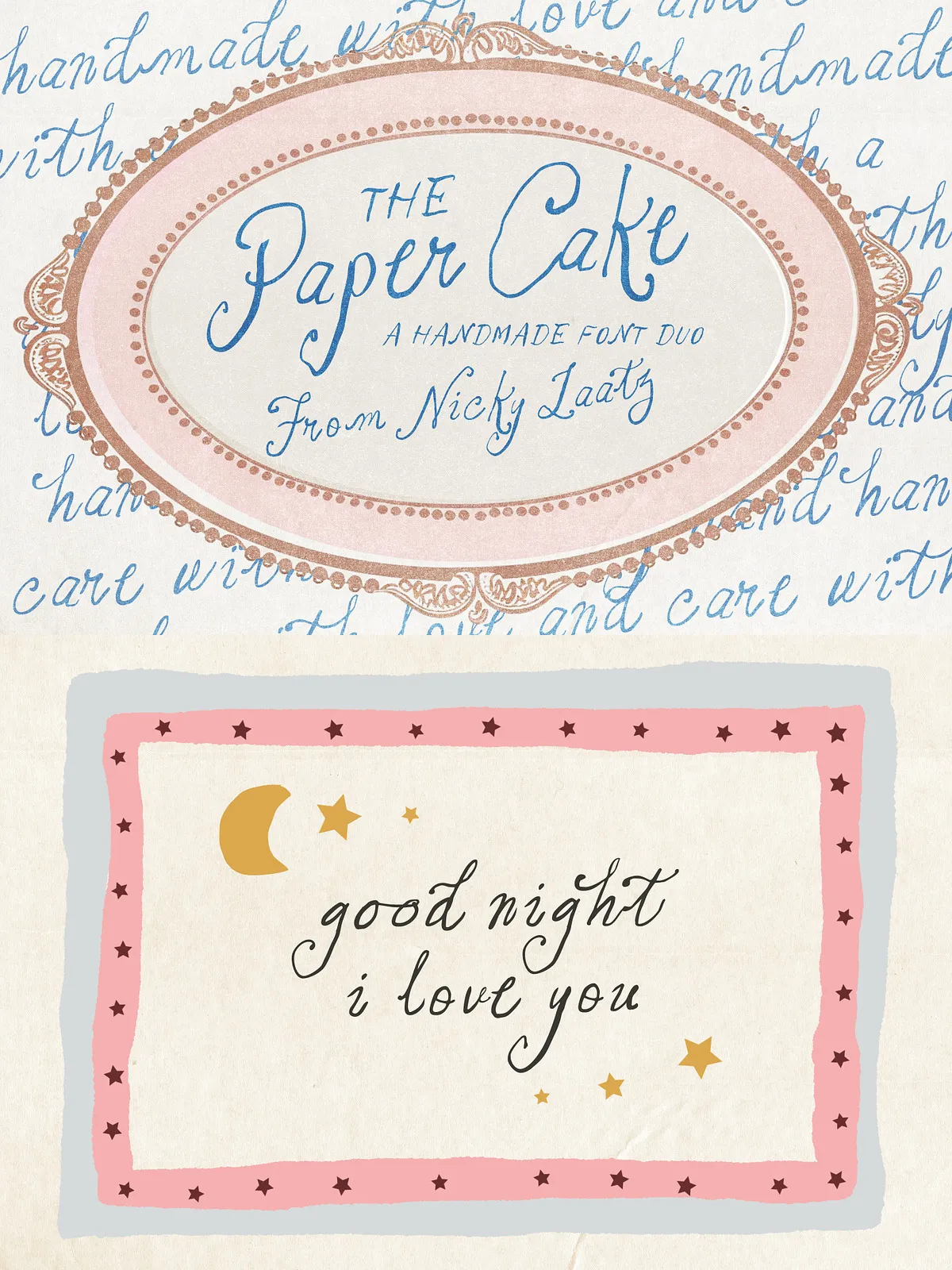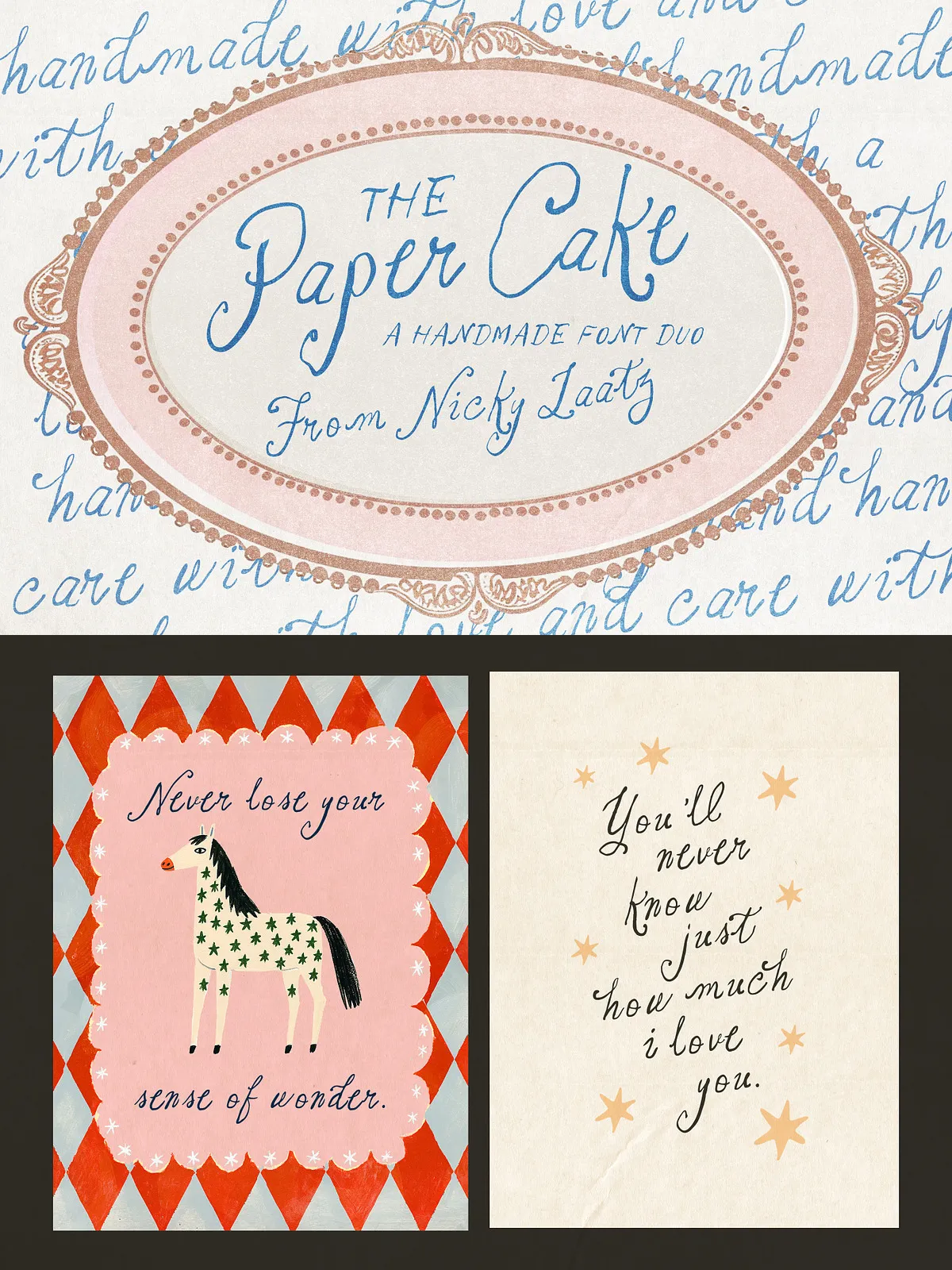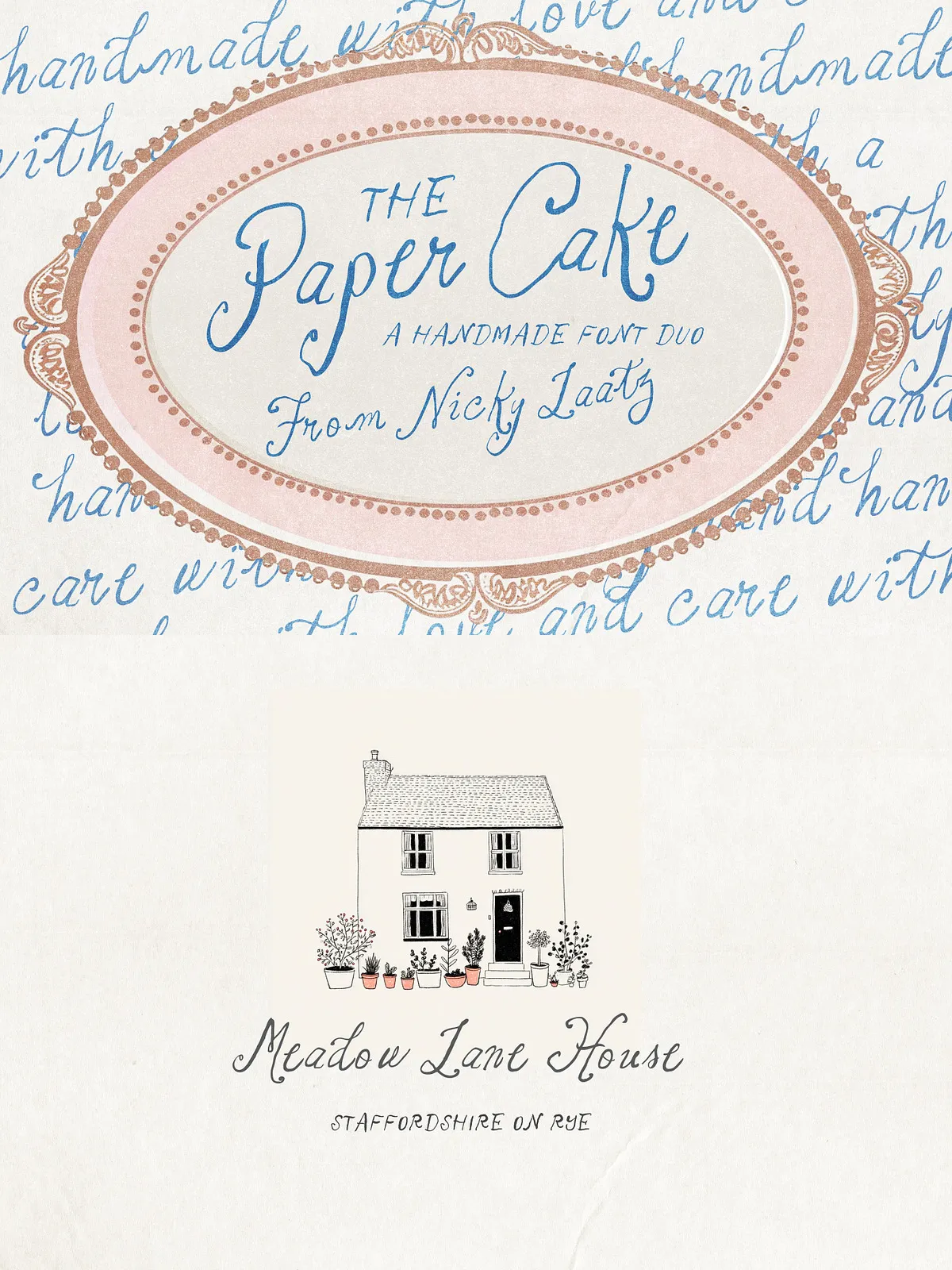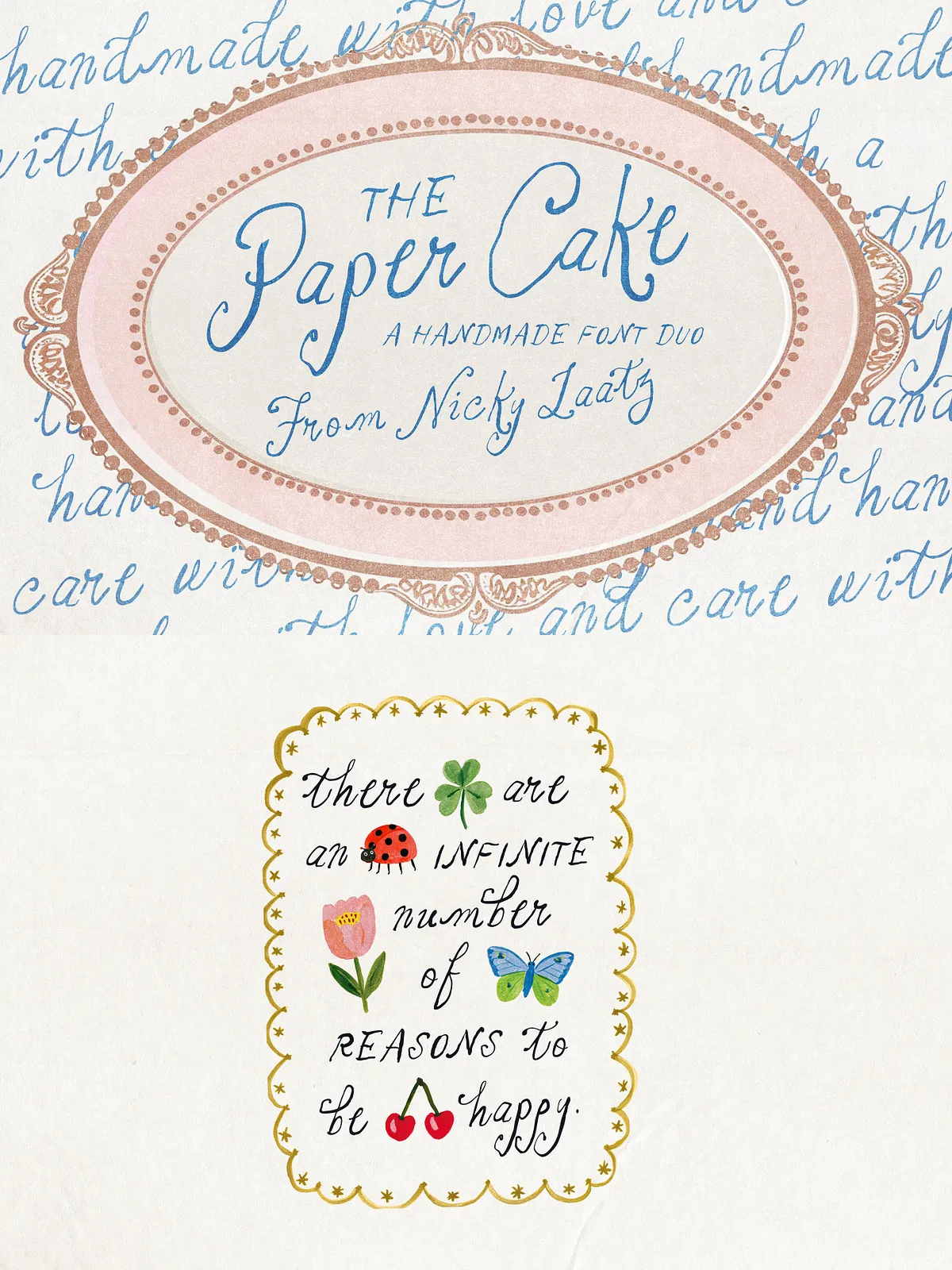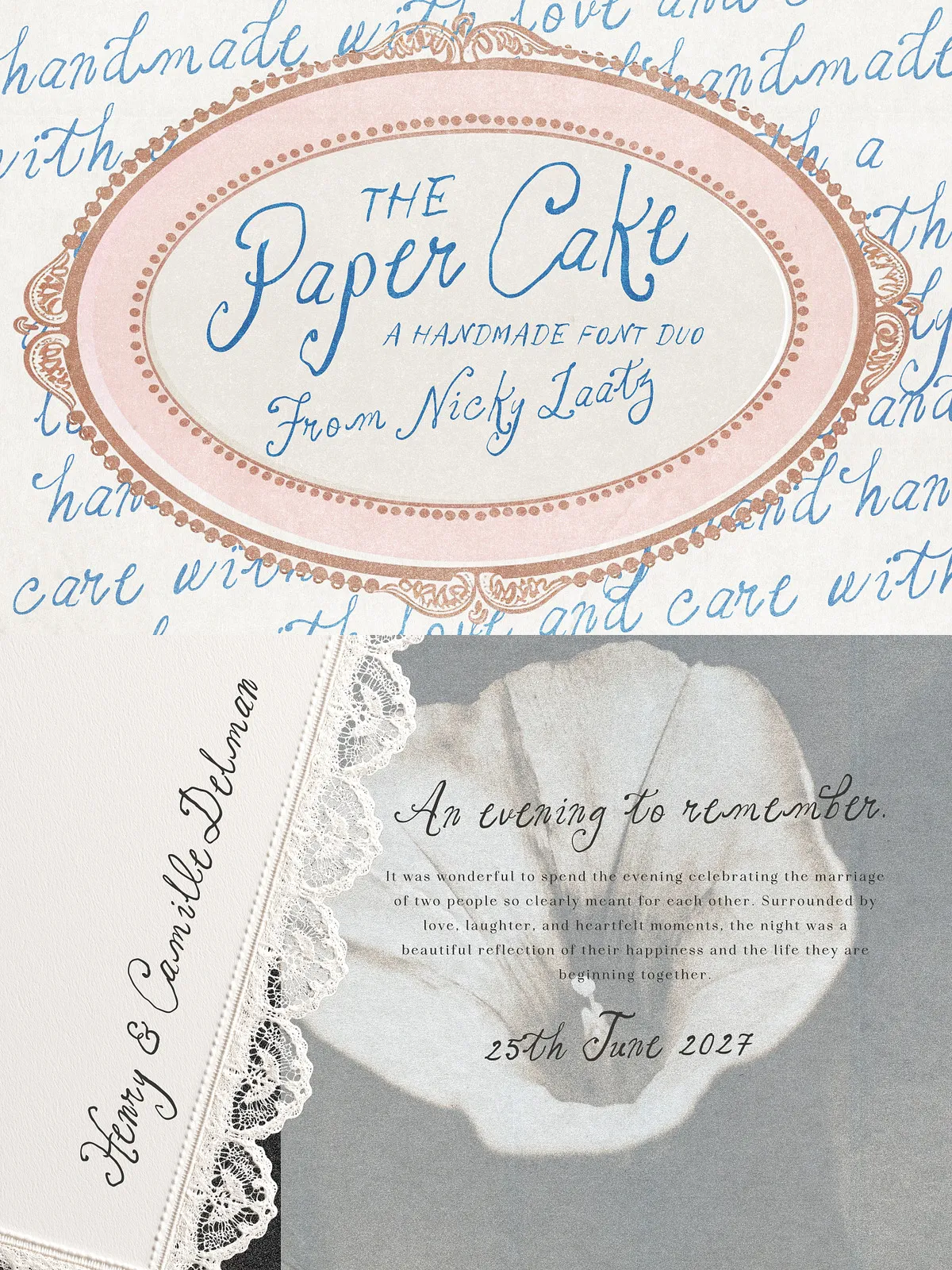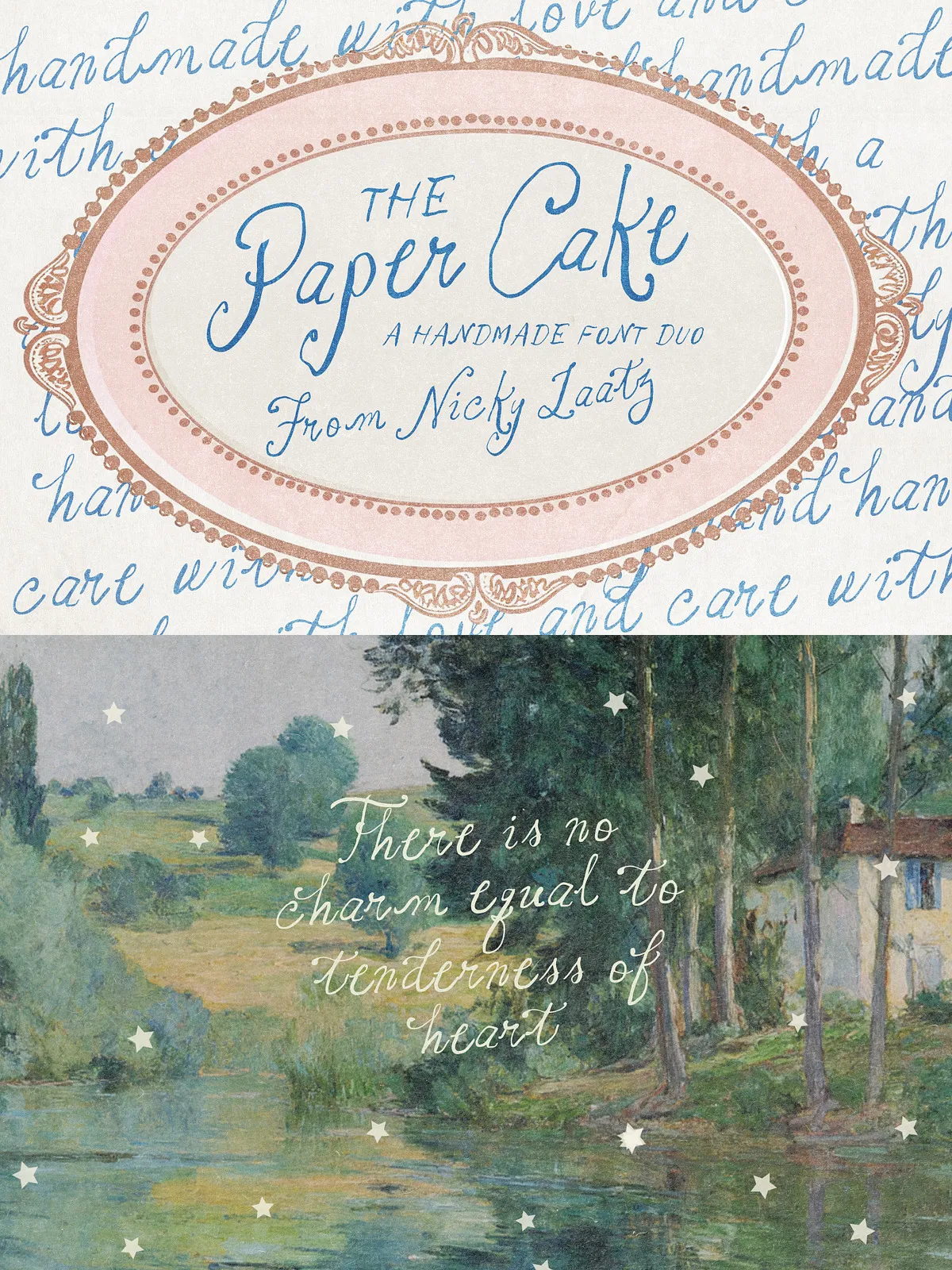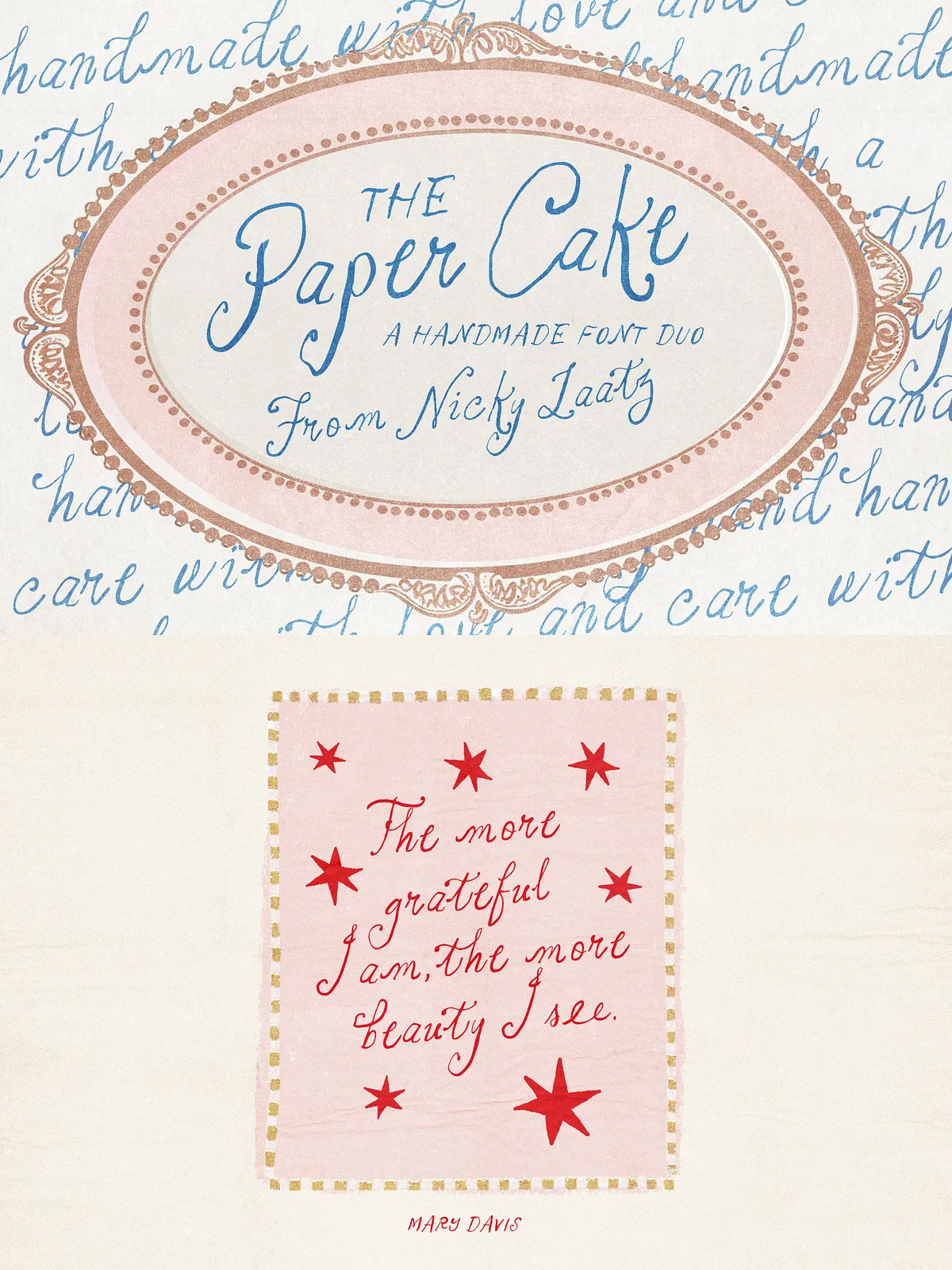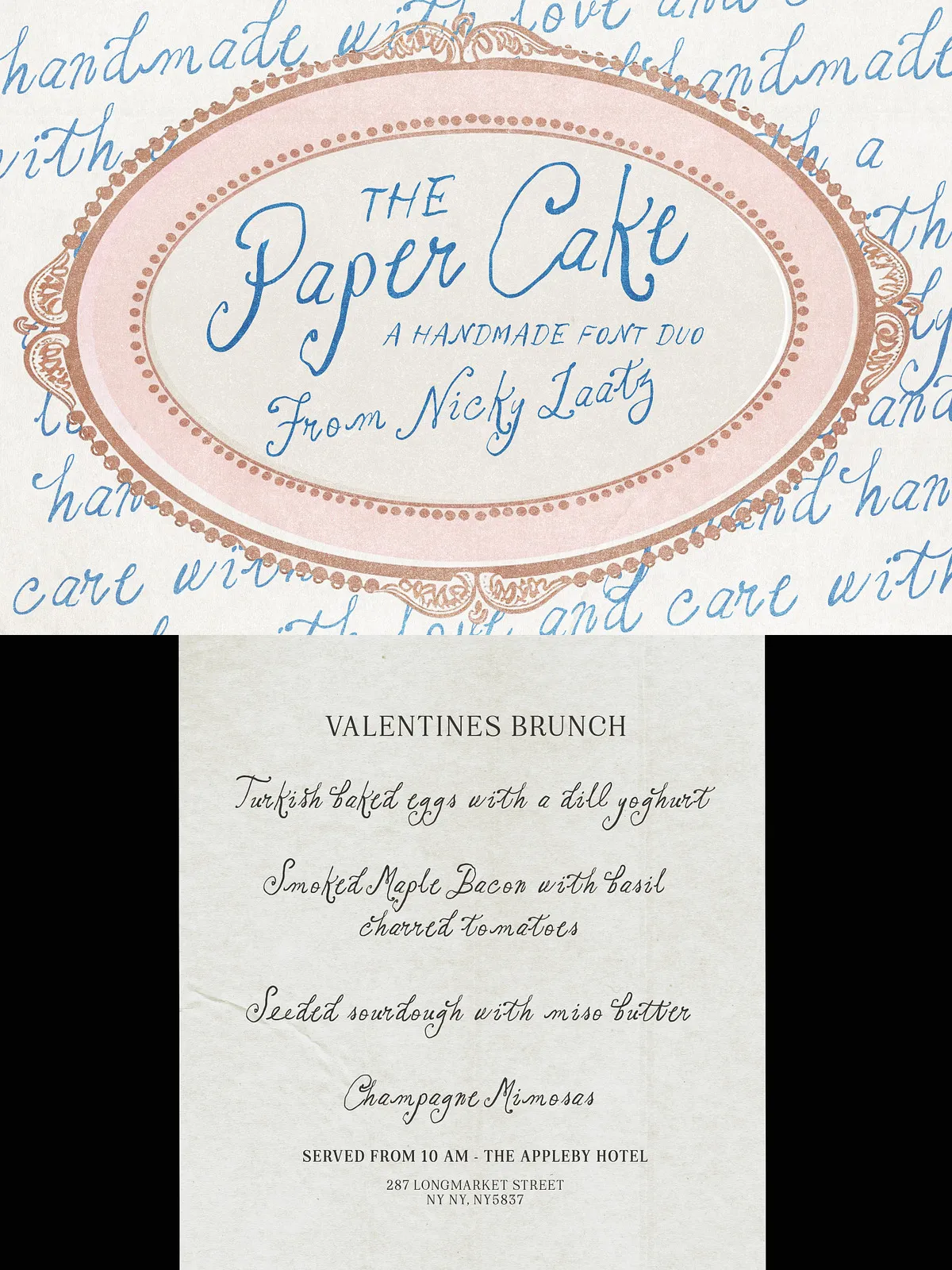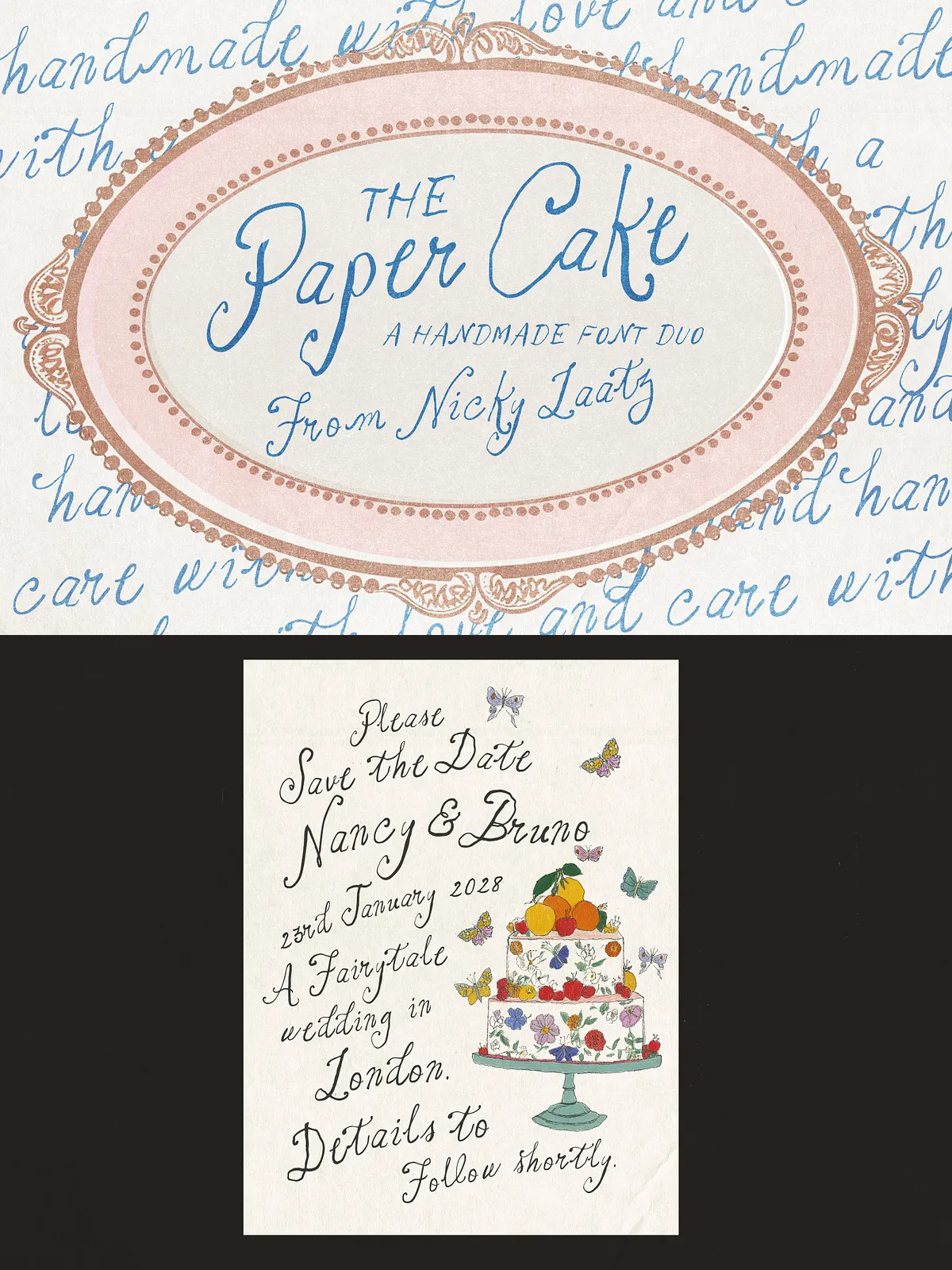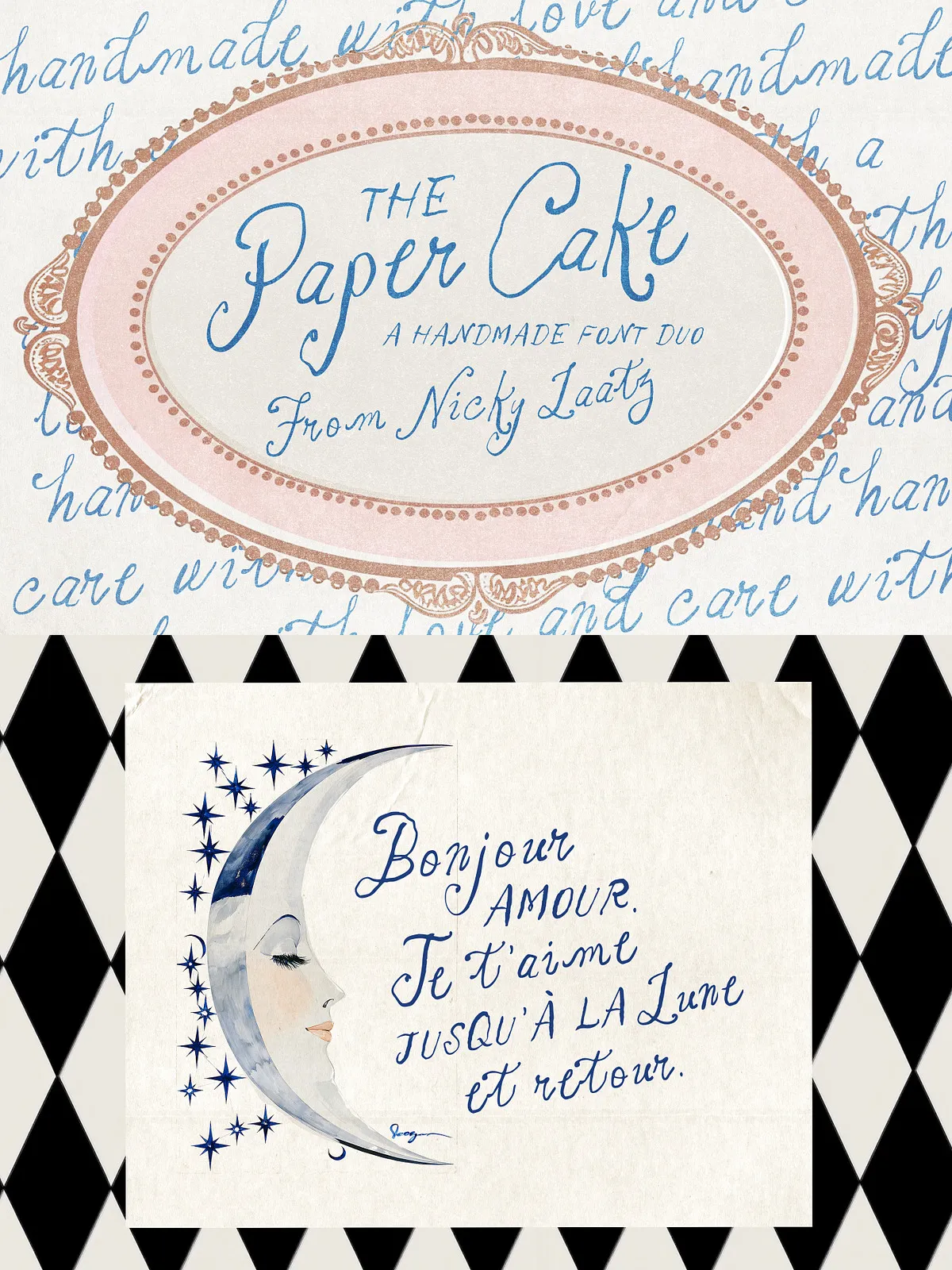
The Paper Cake Font Duo
Paper Cake pairs a delicately hand-lettered, hand-quilled script with a bold, inky all-caps sans to deliver a versatile typographic duet. This duo captures the intimacy of careful handwriting from an era when every letter carried feeling. The script reads warm and poetic while the inky sans provides structure and contrast. Together they create a uniquely personal voice that designers can deploy across romantic, whimsical, and refined projects.
Design & Character
Quilled Script: Warm, Expressive, and Slightly Imperfect
The script embraces small, human imperfections that give it authenticity and charm. Stroke endings show subtle quill-like texture and irregularities that read as hand-crafted rather than manufactured. The letterforms move gently along the baseline, producing readable lines that feel expressive and intimate. Use this script when you want typography to feel handwritten, emotive, and gently nostalgic.
Inky All-Caps Sans: Clean, Playful, and Complementary
The inky all-caps sans anchors the duo with confident shapes and clear geometry. It carries the same handcrafted spirit but with stronger presence and legibility at display sizes. Its slightly textured inked surface pairs naturally with the script: use it for headlines, taglines, or supporting copy to create contrast without clashing.
• Two complementary styles: an imperfect hand-quilled script and an inky all-caps sans
• Multiple weight variances including Oblique and Upright options for the script
• Opentype ligatures for natural double-letter shapes and smoother connections
• Designed for high-impact display use while maintaining readable forms for short copy
• Ideal for print and digital applications that demand personality and warmth
• Paper Cake — Quilled Script (Upright)
• Paper Cake — Quilled Script (Oblique)
• Paper Cake — Script weight variants for nuanced typographic control
• Paper Cake — Inky All-Caps Sans (multiple weights)
OpenType, Ligatures, & Encoding
Turn on OpenType ligatures to access the extra natural-looking double-letter forms that make the script read less like a font and more like handwriting. The package includes PUA-encoded glyphs so you can access stylistic alternatives even if your software lacks full OpenType support. We recommend enabling ligatures and contextual alternates in apps that support them to achieve the most organic, fluid results.
Ideal Uses & Applications
Paper Cake suits projects that call for delicate elegance and a personal touch. Use it for greeting cards, poetic wall prints, whimsical invitations and menus, charming product labels, typographic quotes, fairytale illustrations, boutique branding, and romantic wedding materials. The duo translates well to social media posts, packaging, stationery, and editorial accents where atmosphere matters as much as clarity.
Pairing & Practical Tips
Pair the quilled script with the inky sans to build hierarchy and visual interest: let the script carry short headlines or signatures while the sans supplies clear subheads or straplines. Keep script line lengths short and increase letter-spacing slightly for improved legibility. For printed work, apply light paper textures, subtle grain, or soft letterpress effects to enhance the handcrafted feel. When using the sans as display type, reduce tracking for compact, bold statements.